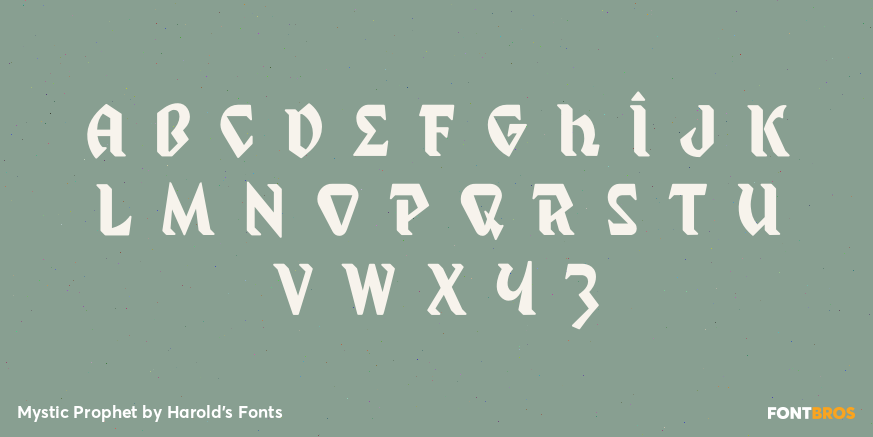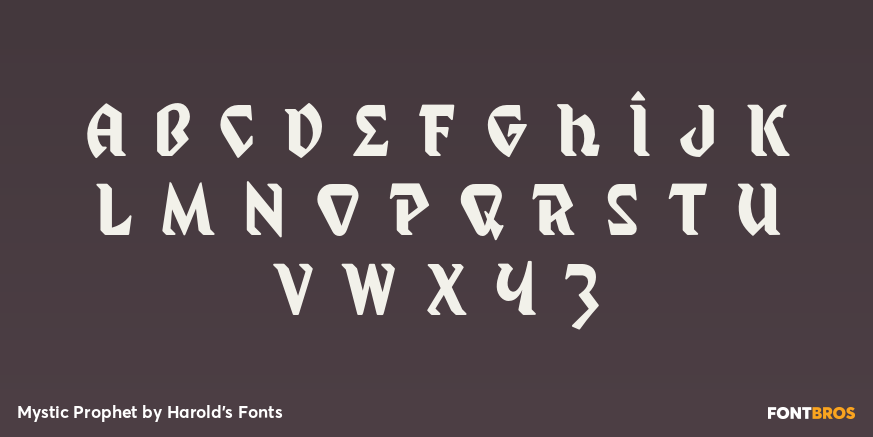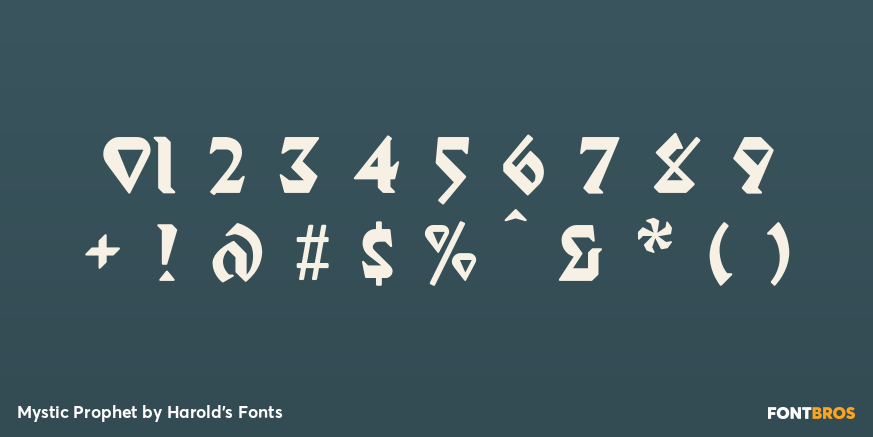
Mystic Prophet
Font Family by Harold's Fonts
MYSTIC PROPHET was inspired by the lettering on a talking board from the 1940s, essentially a knockoff Ouija board. Has a bit of middle eastern exoticism. My other talking board fonts are Captain Hook and Sideshow.